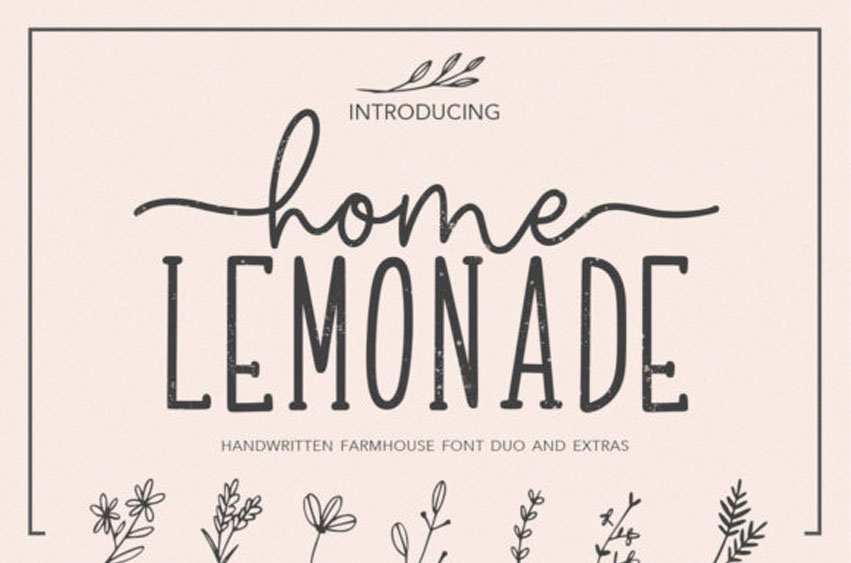
Home Lemonade Font
Home Lemonade Font consists of two fonts designed to complement each other perfectly.
Together or apart, these fonts are ideal for adding a farmhouse style and romantic touch to your crafts. Its stylish alternates and extras make this font the perfect match for any project.